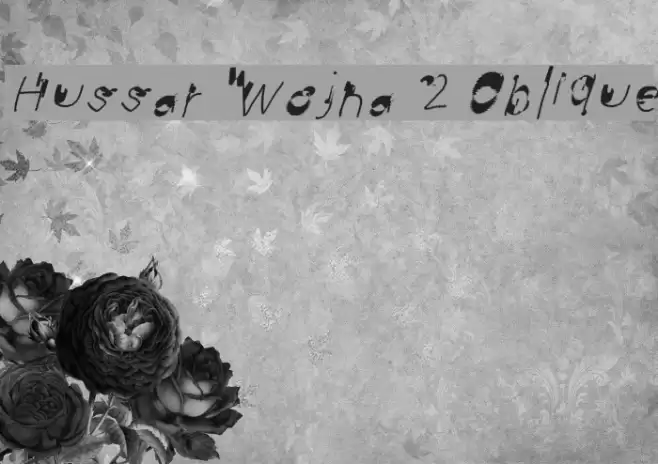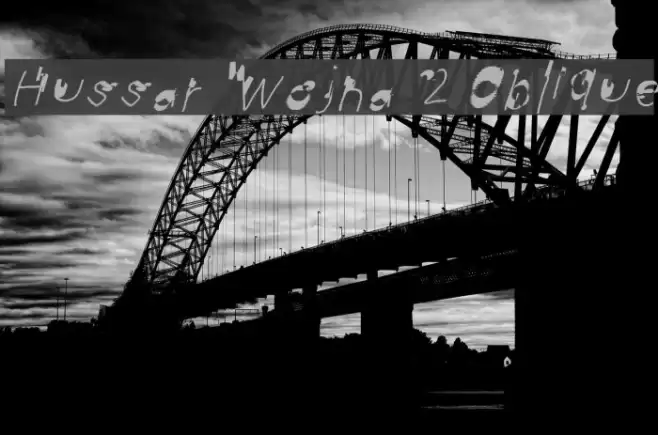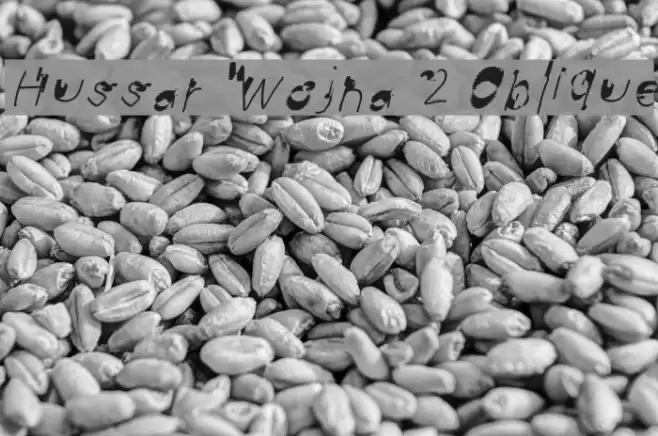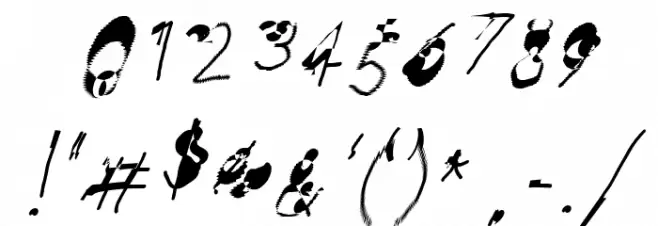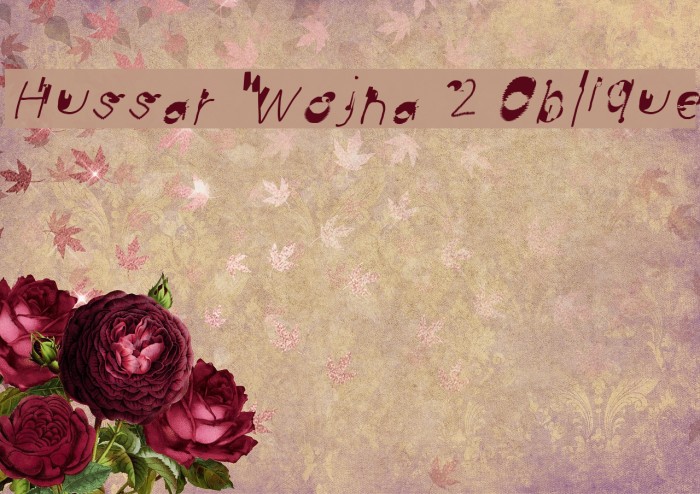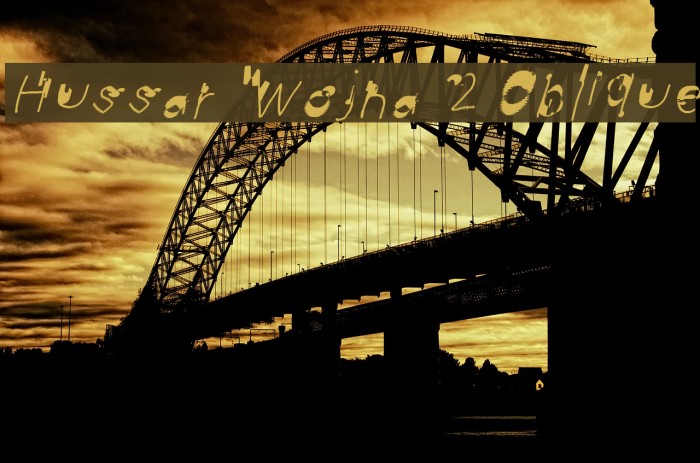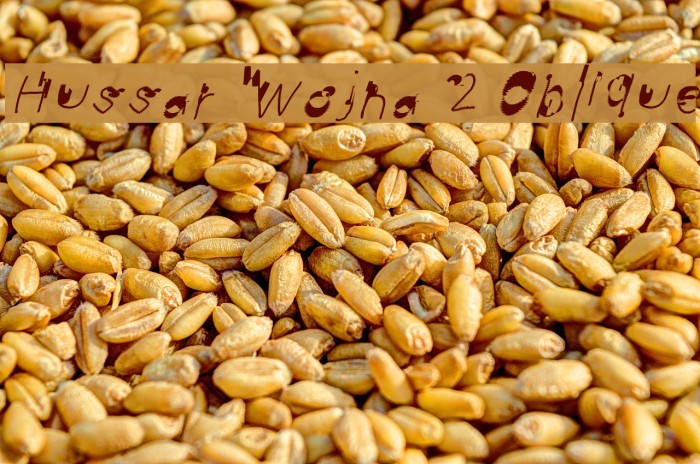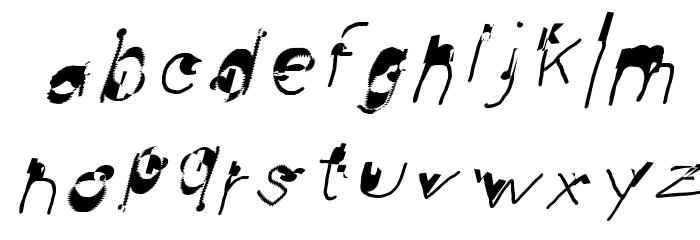
Hussar Wojna 2 Oblique Font
Hussar Wojna 2 Oblique Description
This font features a dynamic and energetic style with a distinct oblique slant, giving it a sense of motion and urgency. The characters are uniquely fragmented, creating a textured and distressed appearance that adds a layer of complexity and visual interest. The uppercase and lowercase letters maintain a consistent slant, while the numbers and special characters follow the same stylistic approach. This font's design is bold and unconventional, making it stand out in any application. The fragmented strokes and varying thicknesses contribute to its high contrast, enhancing its dramatic effect.
A dynamic, oblique font with a fragmented, textured style and high contrast from Uncategorized fonts.
- Proposed Projects: Ideal for edgy branding, music album covers, posters, and creative digital art projects.
- Overall Style: Modern, Decorative